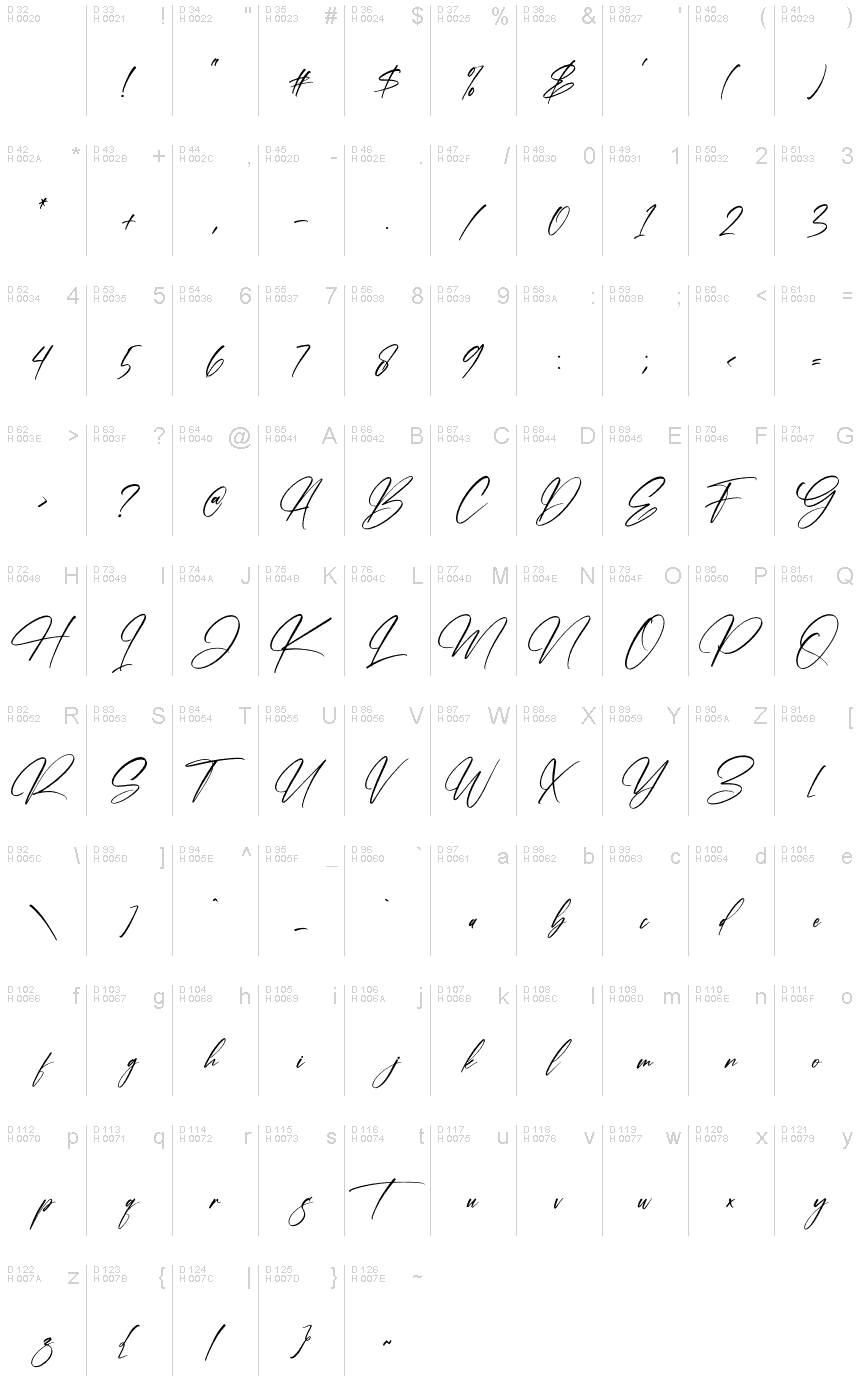
Brithan Signature, a captivating handwritten font by Letterena Studios, adds an elegant touch to any project. With its extra-light weight and semi-condensed width, this font exudes sophistication and grace.
Perfect for wedding invitations, luxury branding, and fashion magazines, Brithan Signature effortlessly infuses a sense of refinement into every design. Its fluid strokes and authentic feel make it an ideal choice for personal blogs, beauty products packaging, or even romantic novels covers.
Add a touch of class with Brithan Signature and watch your projects come to life.